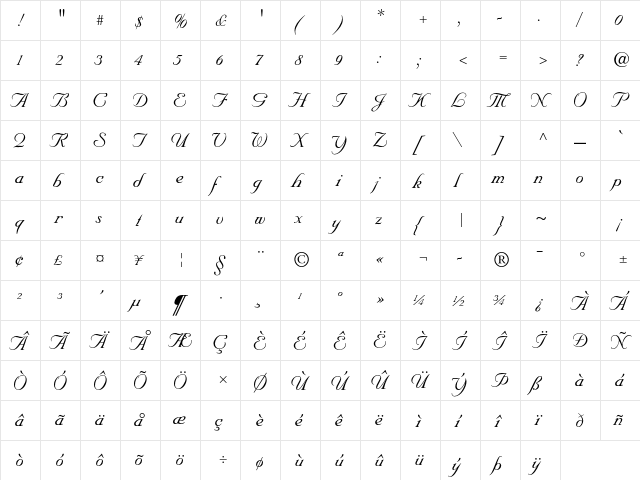
Nuptial Script LT Std Medium
| Designer | Edwin Shaar |
Design Context for Nuptial Script LT Std Typeface
Nuptial Script LT Std brings a calligraphic fluidity to the page — its connecting strokes and expressive curves give it an unmistakably human quality. Its slender proportions lend an understated elegance to any composition.
Font Pairing: Combine Nuptial Script LT Std with a simple geometric sans for maximum contrast — the tension between flowing curves and clean structure is a classic typographic pairing.
Pro Tip: Use Nuptial Script LT Std for short runs of text — names, titles, or taglines. Extended body copy in script faces tires the eye quickly.